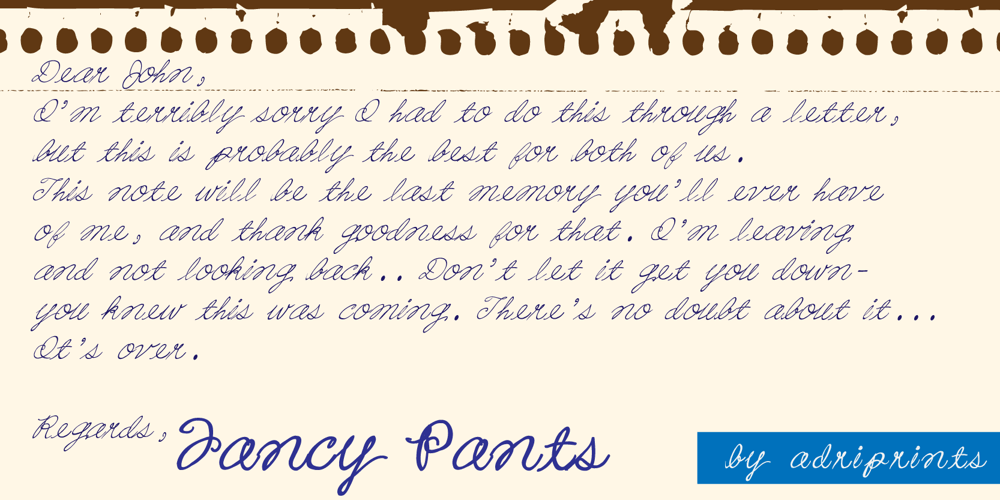
FancyPants Font Family was designed by Adriana E. Hernandez and published by Adriprints. FancyPants contains 4 styles and family package options. FancyPants is the first script font for Adriprints. It is always a challenge to jump into something new, and cursive script was right up that alley. FancyPants is a semi-linking, quirky, cursive script available with extended glyphs for international use.